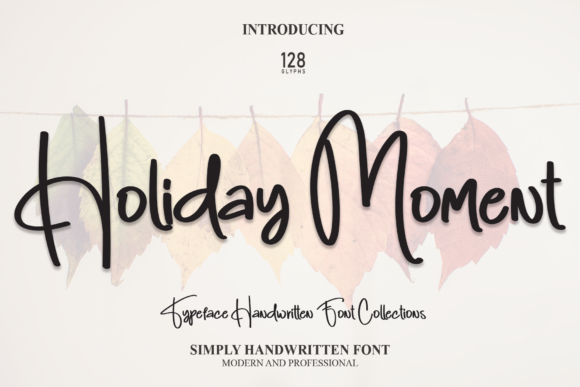
Introducing Holiday Moment Font - The Timeless Handwritten Script for Your Creative Expressions!
Step into the world of elegance and charm with Holiday Moment Font, a classic yet refreshing handwritten script that captures the essence of sophistication and creativity. With its whimsical strokes and free-flowing style, Holiday Moment effortlessly elevates your designs to new heights of visual appeal.
Immerse yourself in the enchanting world of Holiday Moment, where each letter dances and flows with a life of its own. This meticulously crafted font family, designed by the esteemed Roronoa Zoro.S.P.D, embodies the very essence of handwritten beauty.
Discover the Endless Possibilities of Holiday Moment:
- Unleash your creativity in the fashion industry, where Holiday Moment's graceful curves and delicate strokes lend an air of exclusivity to logos, headlines, and branding.
- Craft captivating posters and flyers that exude a timeless charm, sure to leave a lasting impression on your audience.
- Create enchanting book covers, magazine spreads, and comic panels that transport readers into imaginary worlds.
- Bring your YouTube videos and Instagram posts to life with Holiday Moment's dynamic personality, capturing the attention of your followers.
- Design captivating websites and e-commerce platforms that radiate elegance and sophistication, inviting customers to explore your products and services.
- Whether you're a seasoned designer or just starting out, Holiday Moment is your versatile companion, ready to transform your creative visions into stunning realities.
Embrace the Elegance of Holiday Moment:
- Holiday Moment's classic script style adds a touch of refinement to any project, elevating it beyond the ordinary.
- Its legible and versatile nature makes it suitable for a wide range of applications, from formal invitations to playful social media posts.
- The font's timeless appeal ensures that your designs remain relevant and captivating, standing the test of time.
- Experience the joy of creating with Holiday Moment, as its user-friendly nature allows you to seamlessly integrate it into your design workflow.